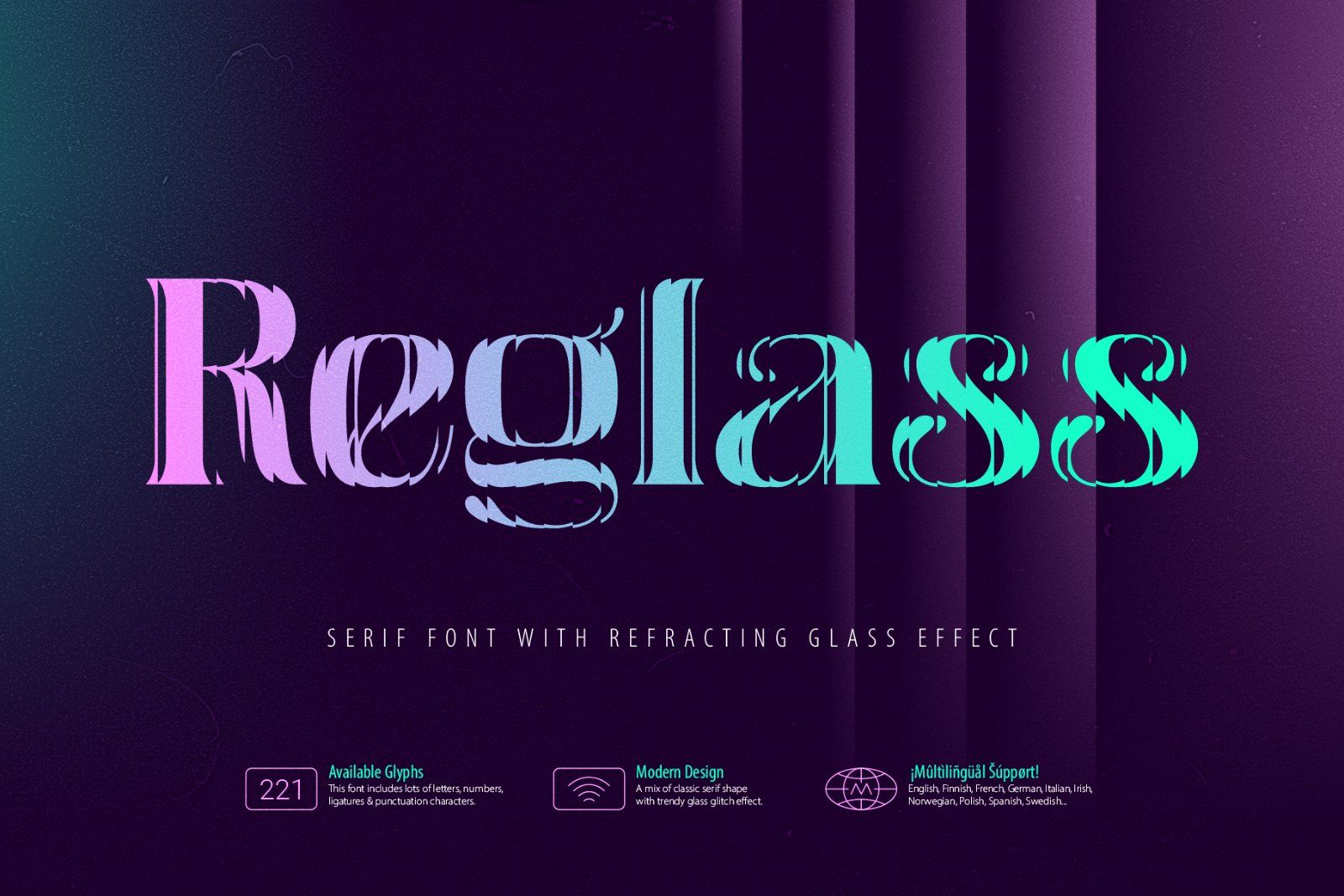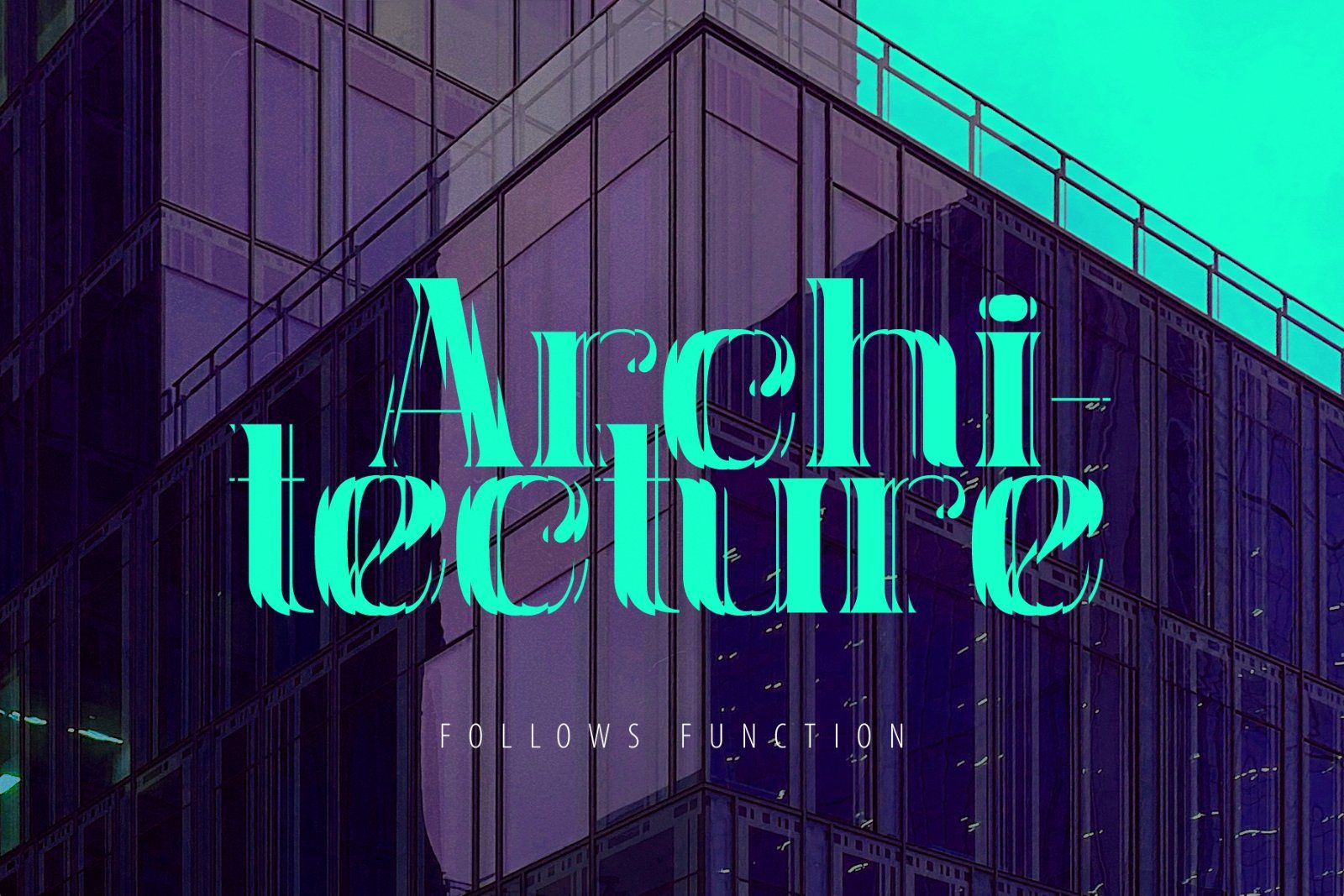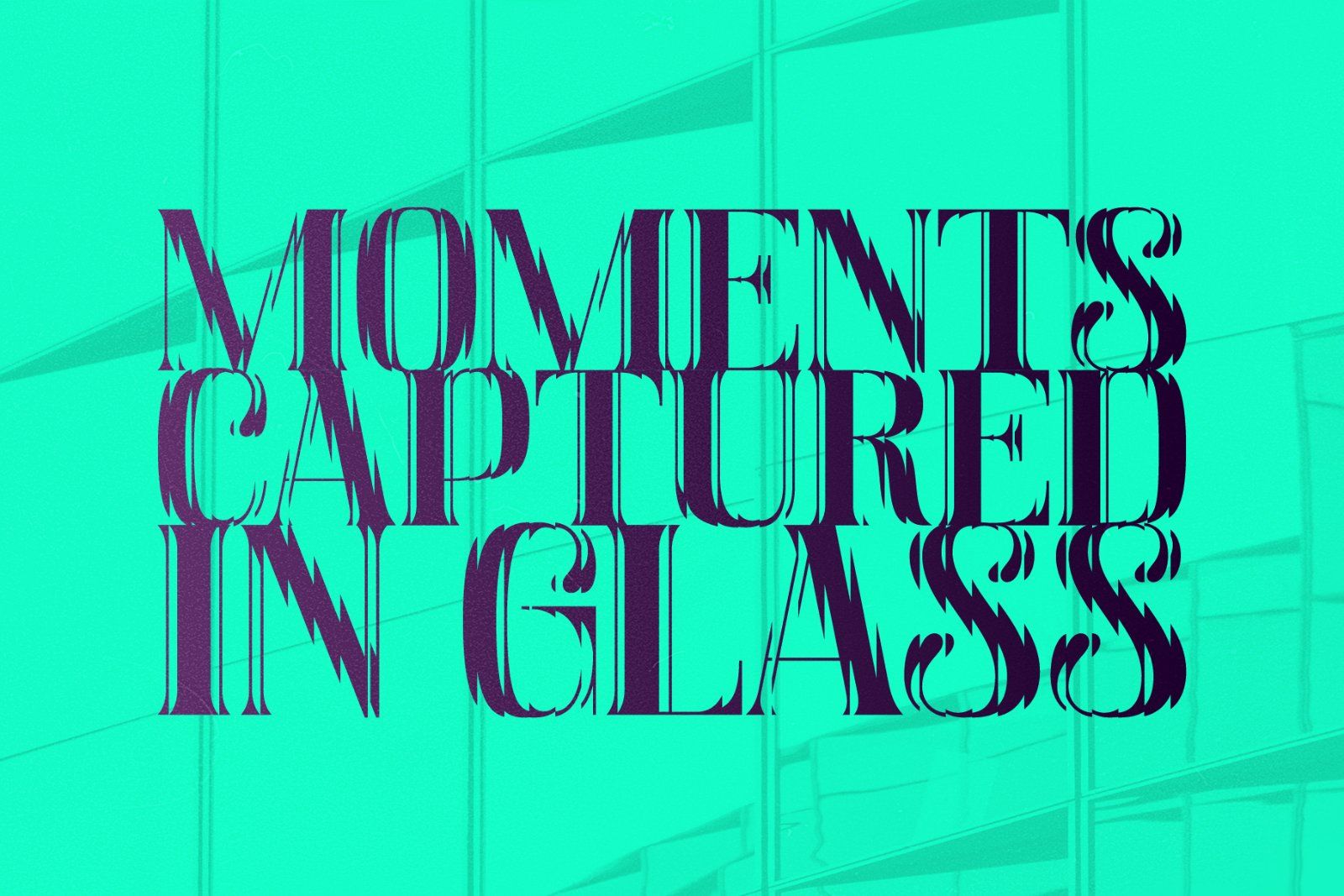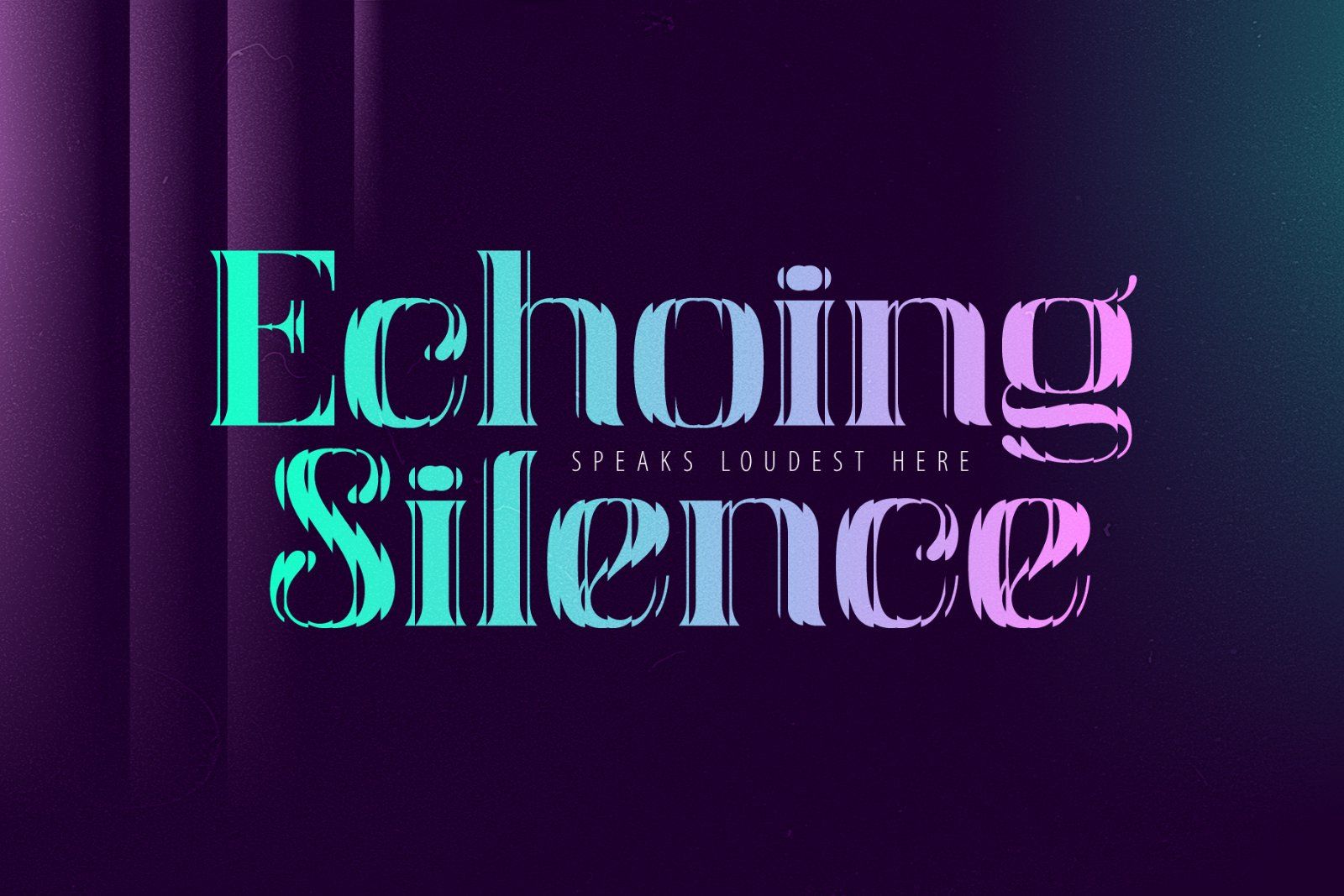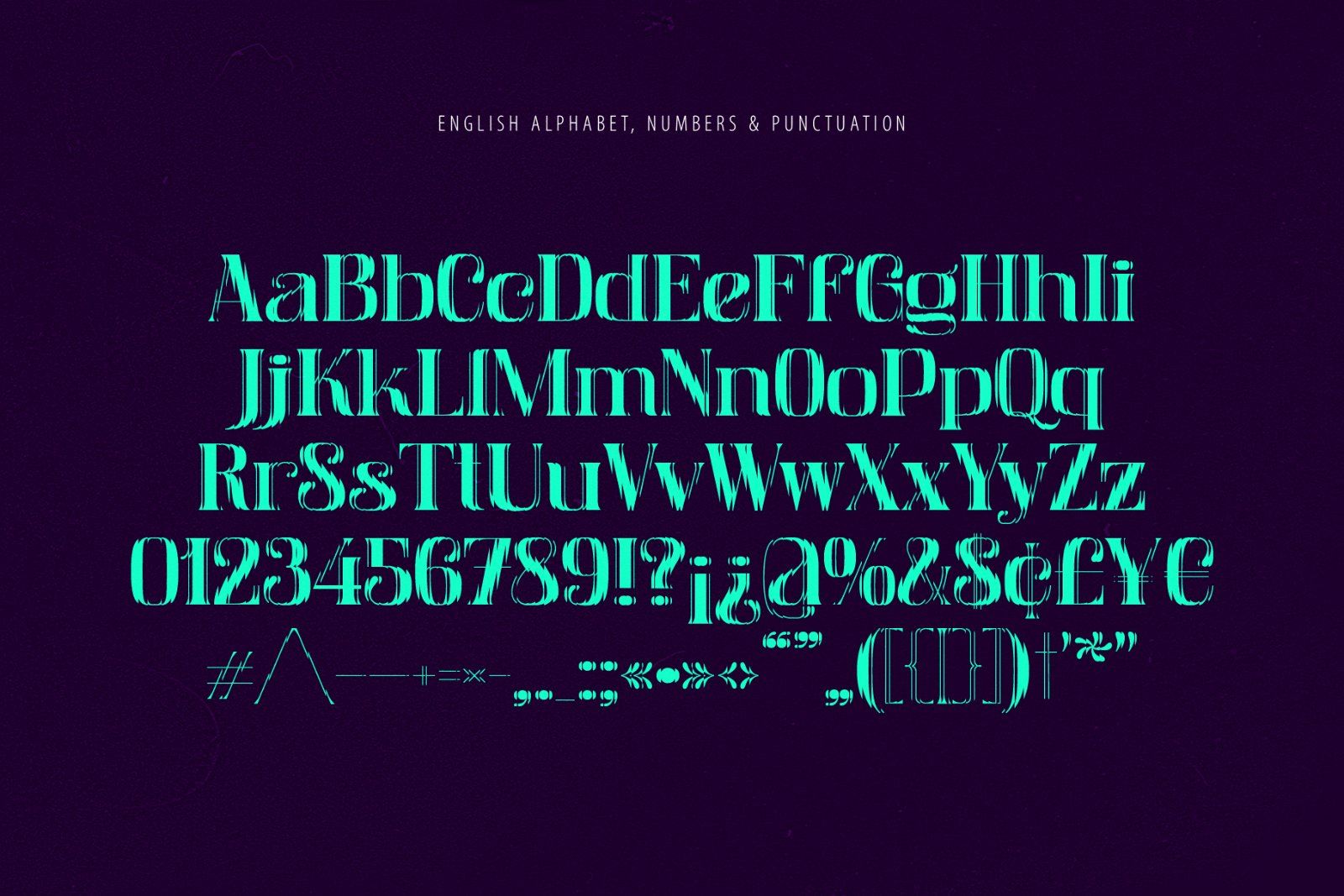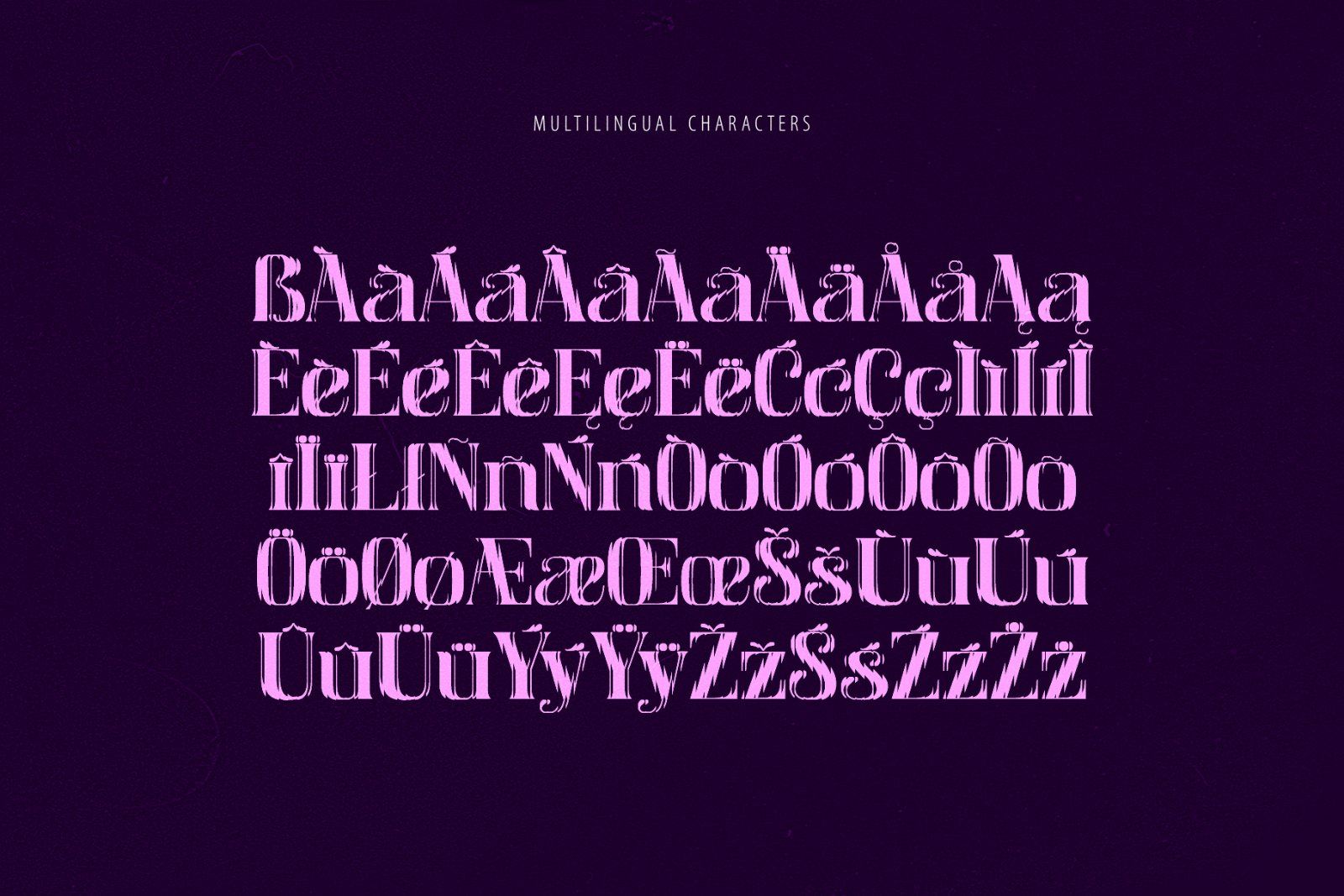
Reglass is a modern serif font with an original refracting glass effect. Embedded vector glitch-like shapes produce an elegant yet expressive mood. It is perfect for advertising posters, high-end label designs, and unique lettering compositions.
Reglass includes 221 characters for wide multilingual support — check the screenshots to view the full character set.